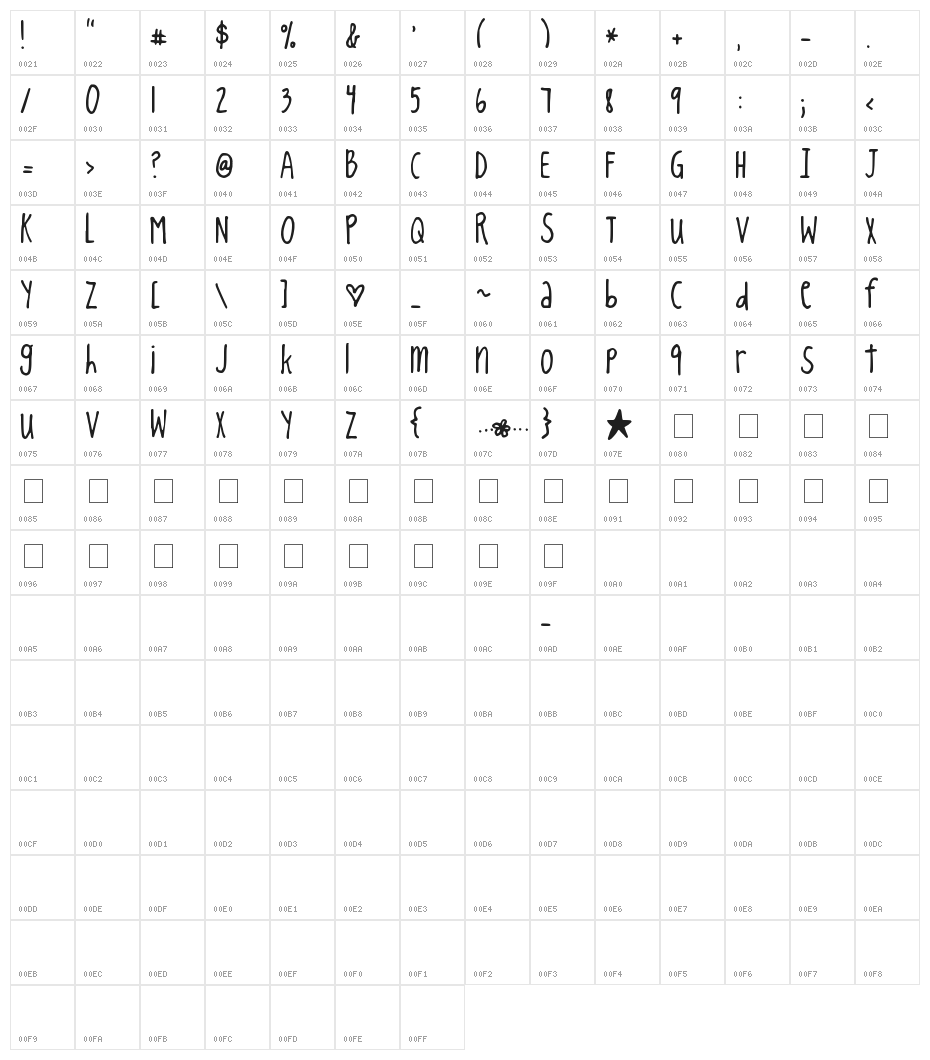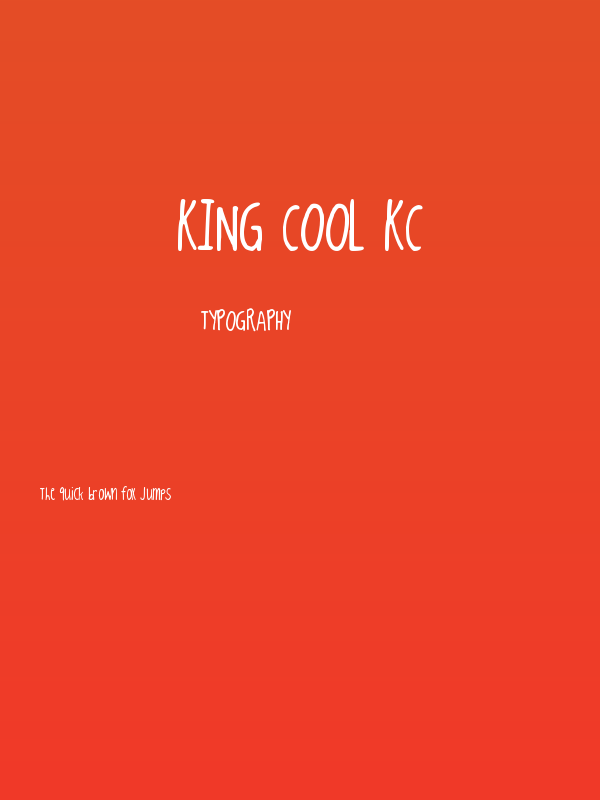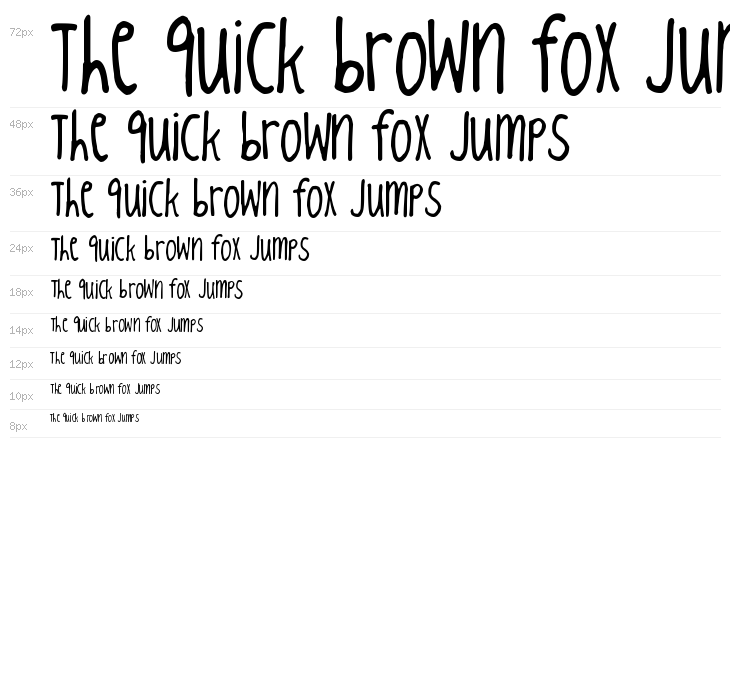
king cooL KC Font
king cooL KC Description
This font features a playful and casual handwritten style, characterized by its irregular and organic letterforms. The uppercase and lowercase letters maintain a consistent flow, with slightly varying stroke widths that add a dynamic and lively feel. The numbers and special characters complement the alphabet with a similar whimsical touch. This font's informal and friendly appearance makes it suitable for projects that require a personal and approachable tone.
| Proposed Projects | Ideal for greeting cards, children's books, casual branding, and social media graphics. |